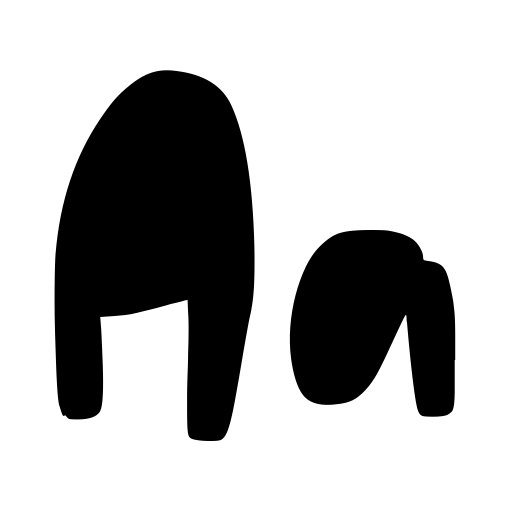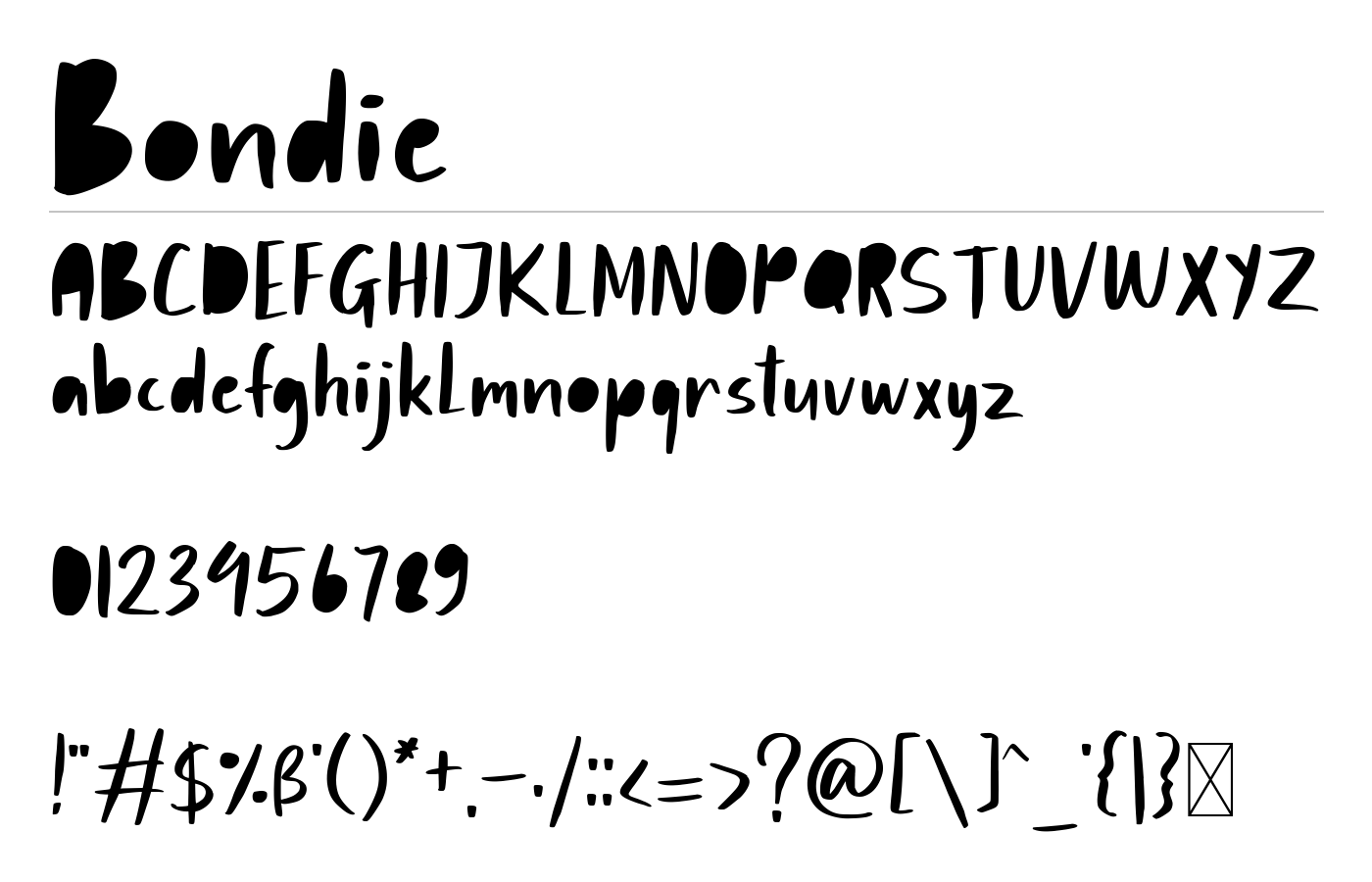
Bondie is a playful, hand-drawn sans serif font with a casual, friendly vibe. Its bold and irregular letterforms, combined with a mix of thick and thin strokes, give it a lively and approachable personality that works well for creative projects, informal branding, and fun headlines. This font shines in designs that need a personal, cheerful touch, making it ideal for posters, children’s materials, and social media graphics.
Bondie Font
About Bondie Font